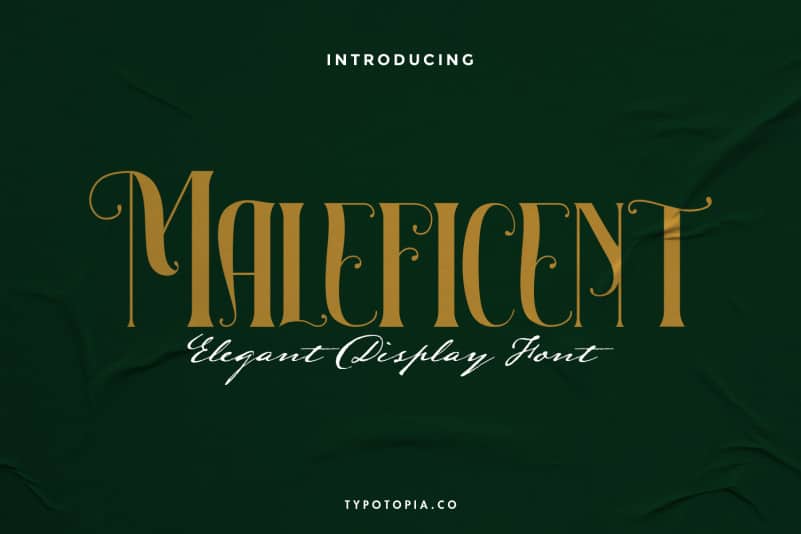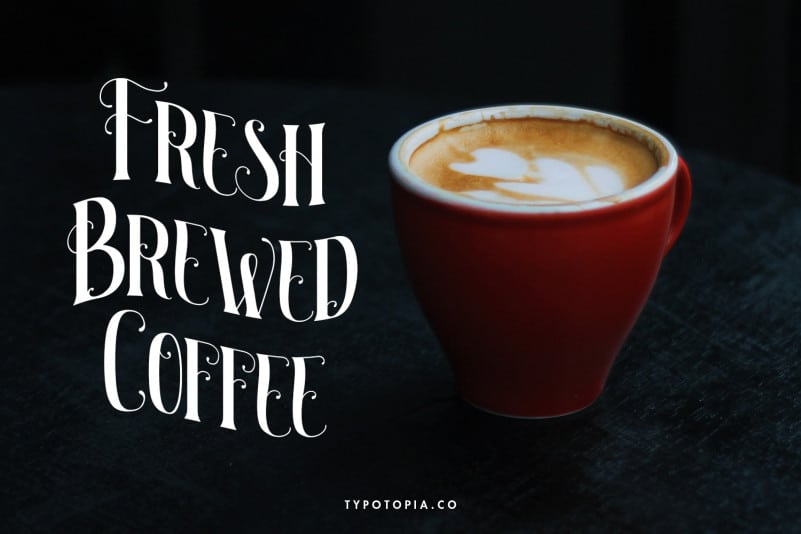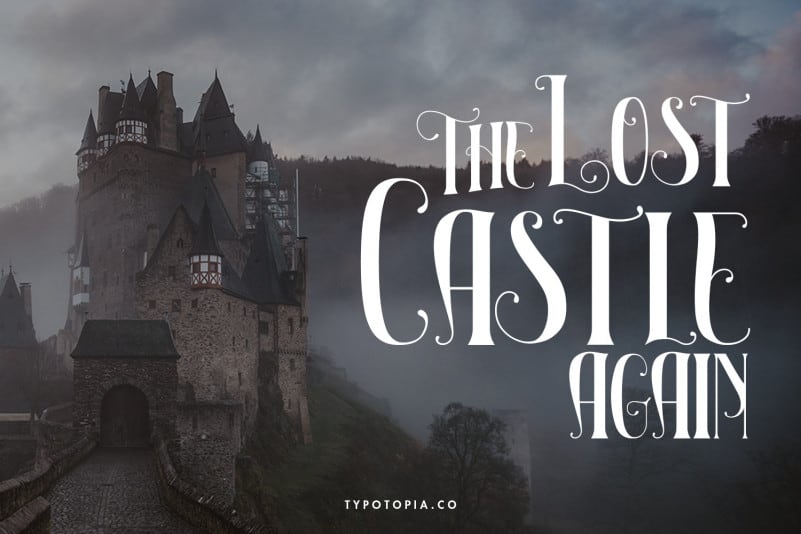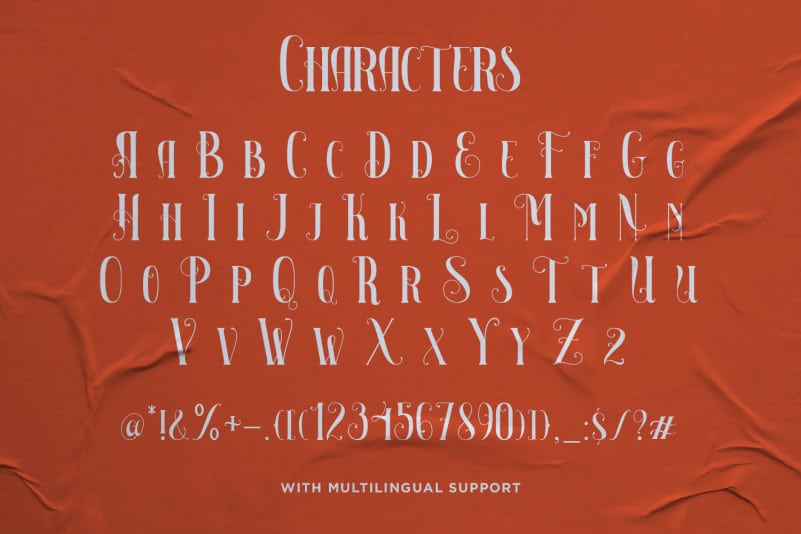
Maleficent The Elegant Display Font
Maleficent The Elegant Display Font is an incredibly Unique and Interesting Display Font for your Design that is absolutely great for your next creative project such as logos, printed quotes, invitations, cards, product packaging, headers, Logotype, Letterhead, Poster, Apparel Design, Label, and etc.
Maleficent The Elegant Display Font includes also support a Multilingual Characters. Making this Font a Swiss Army knife in your Font Library. It’s extremely fun to use as each word can be transformed to your liking.